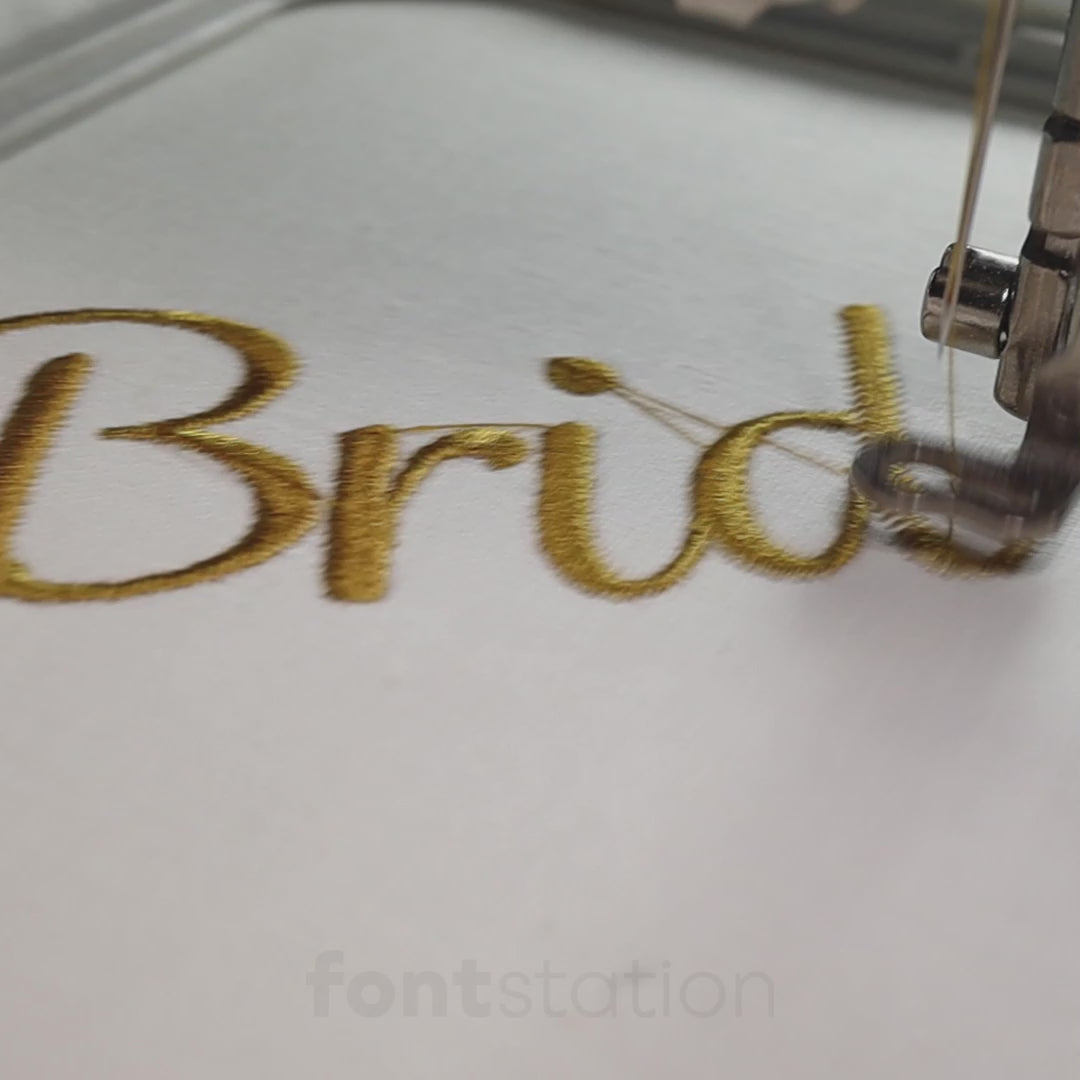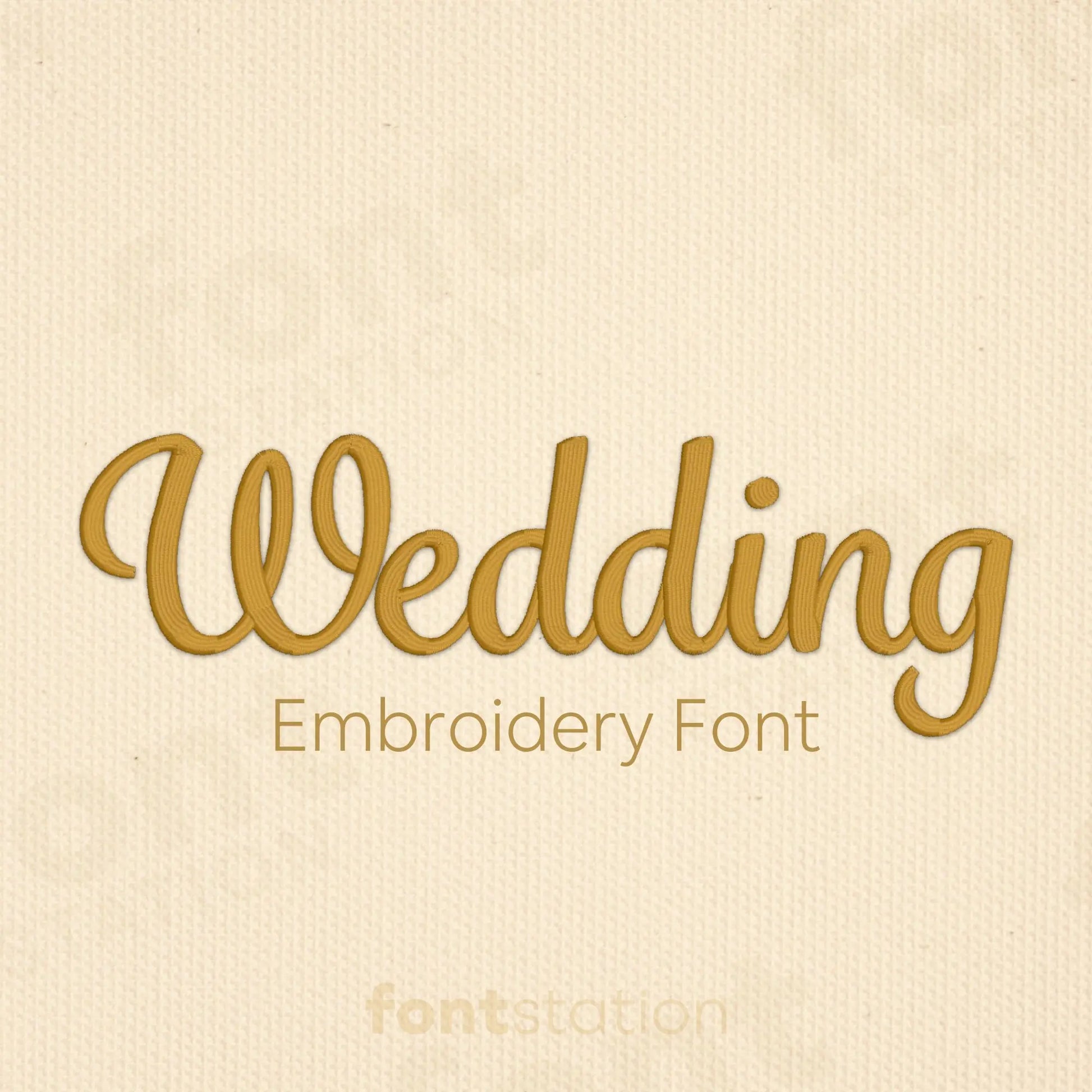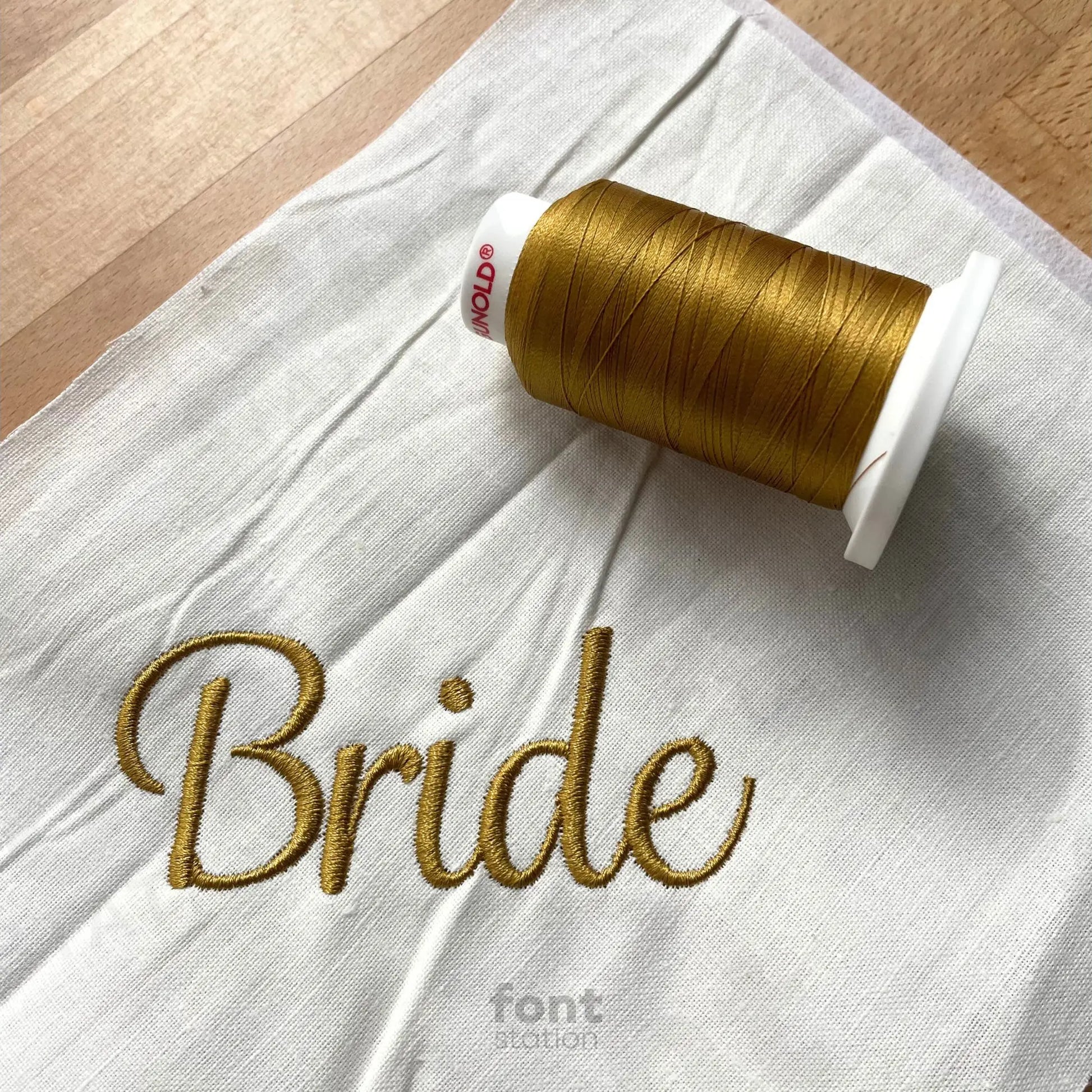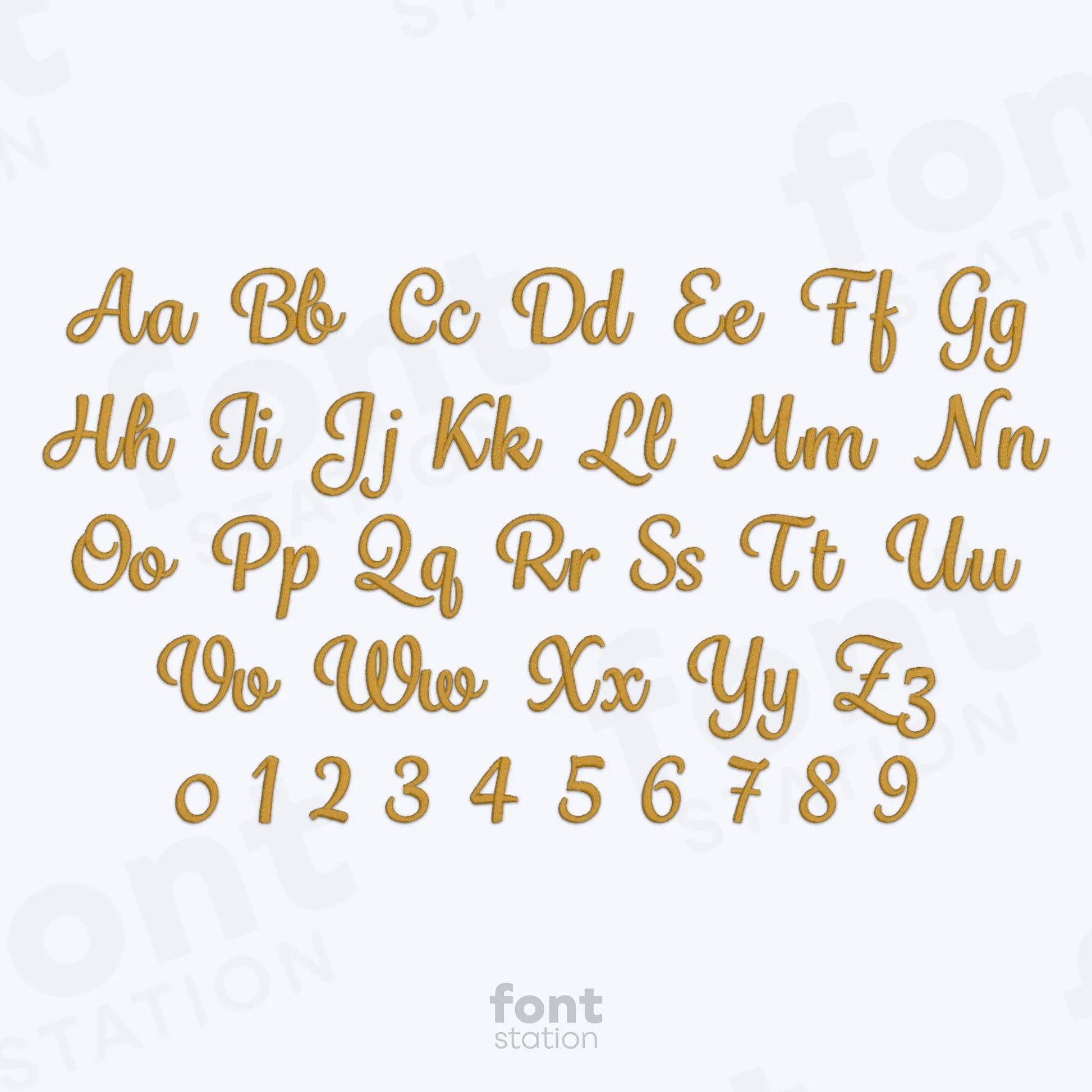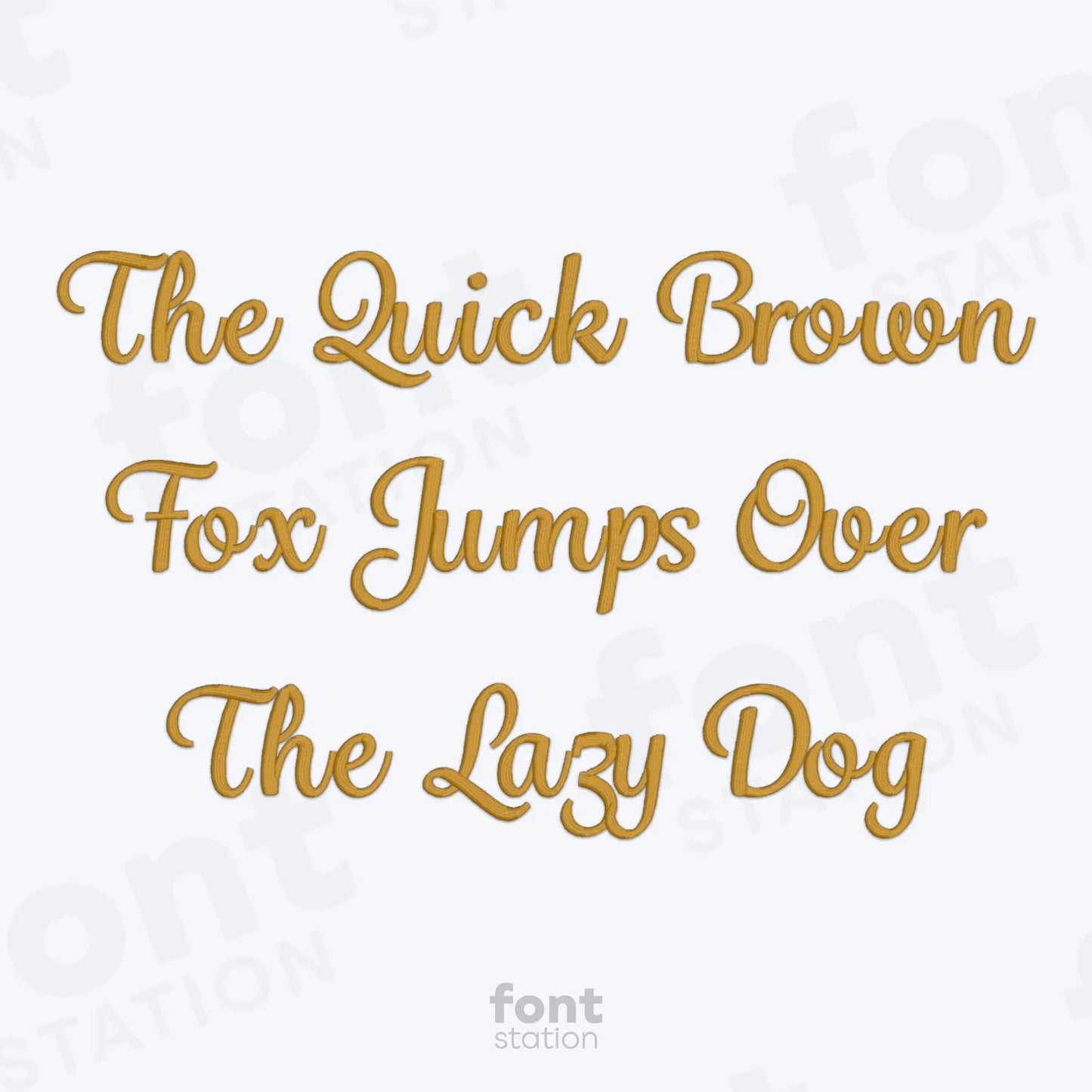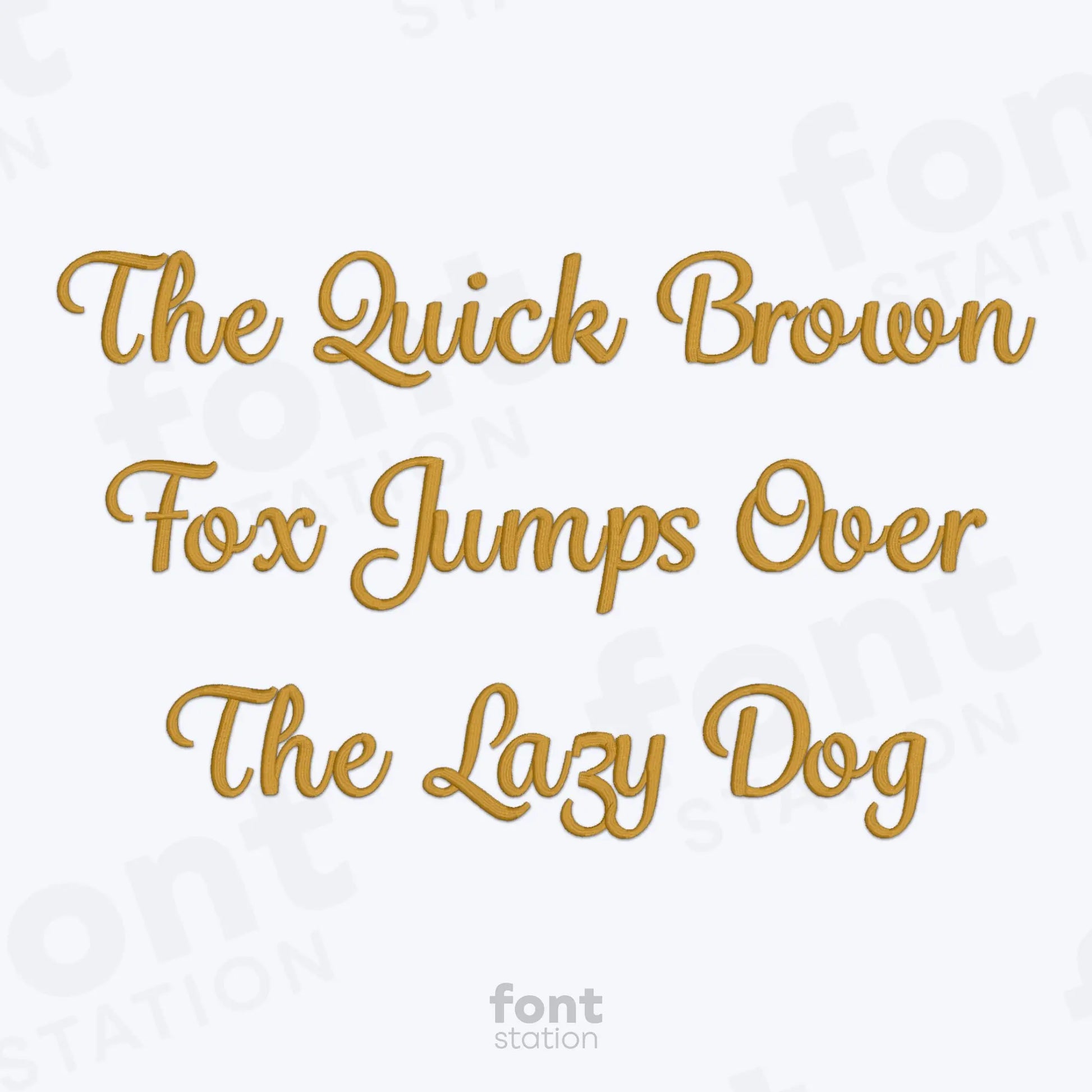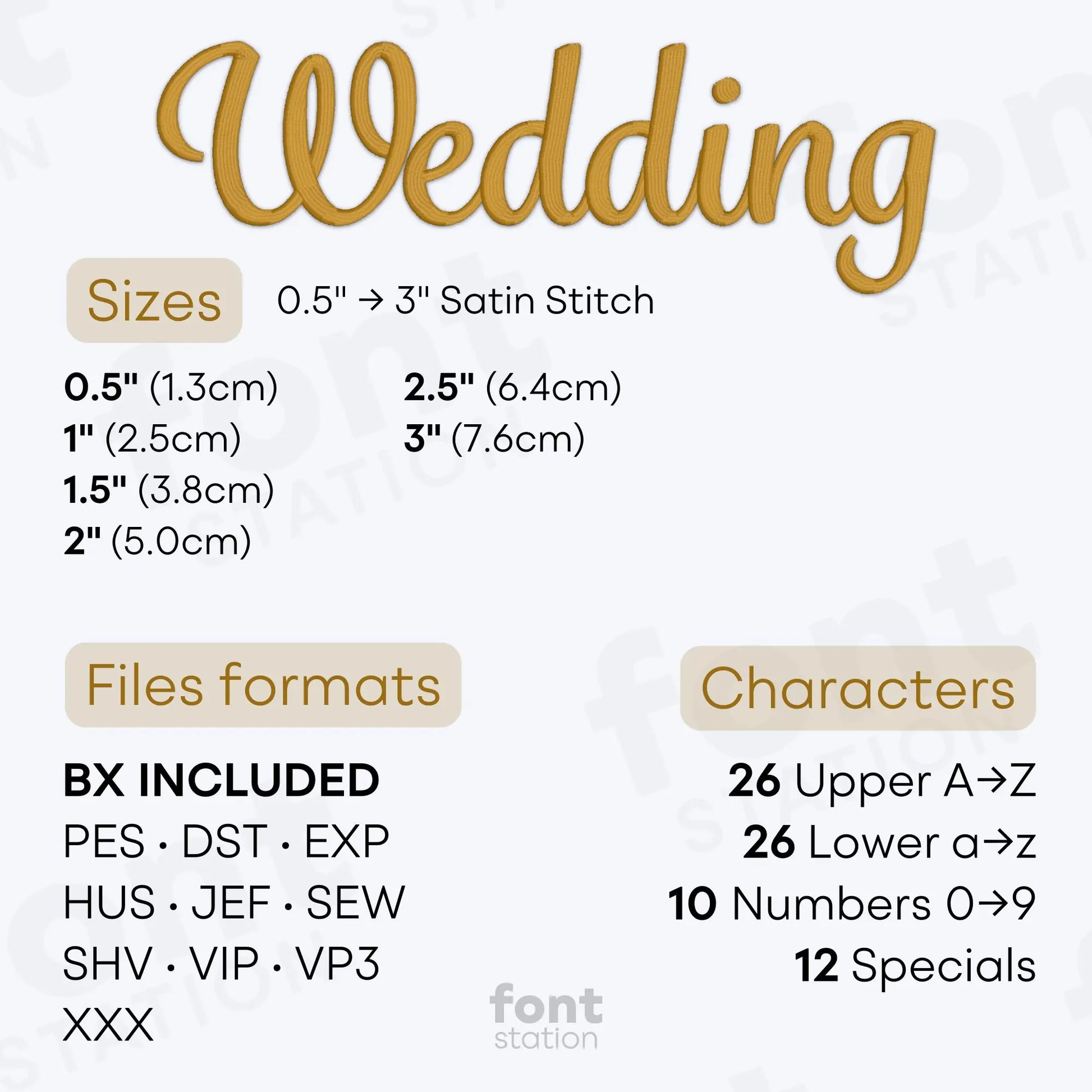
Wedding Embroidery Font
Our Wedding embroidery font is an elegant cursive alphabet designed for machine embroidery. These graceful letters add timeless charm to any design, from bridal gifts to elegant monograms.
About the Wedding Embroidery Font
Satin Stitch: 0.5", 1", 1.5", 2", 2.5", and 3"
Characters: 26 uppercase, 26 lowercase, 10 numbers, and symbols & ' @ , - . ! # ( ) ? /
Wedding Embroidery Font - Elegant Cursive Alphabet for Machine Embroidery Projects
Our Wedding embroidery font is a professionally digitized elegant cursive alphabet designed to add timeless beauty and sophistication to your machine embroidery projects. Perfect for wedding gifts, bridal accessories, monograms, invitations, and decor, this graceful font features smooth, flowing lines that stitch beautifully on a wide range of fabrics. Whether you're personalizing a ring pillow or creating heirloom embroidery, these wedding embroidery letters offer clean, precise stitching every time.